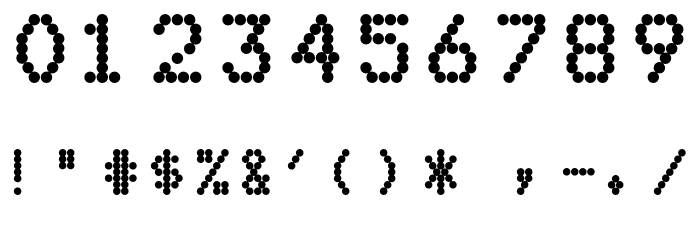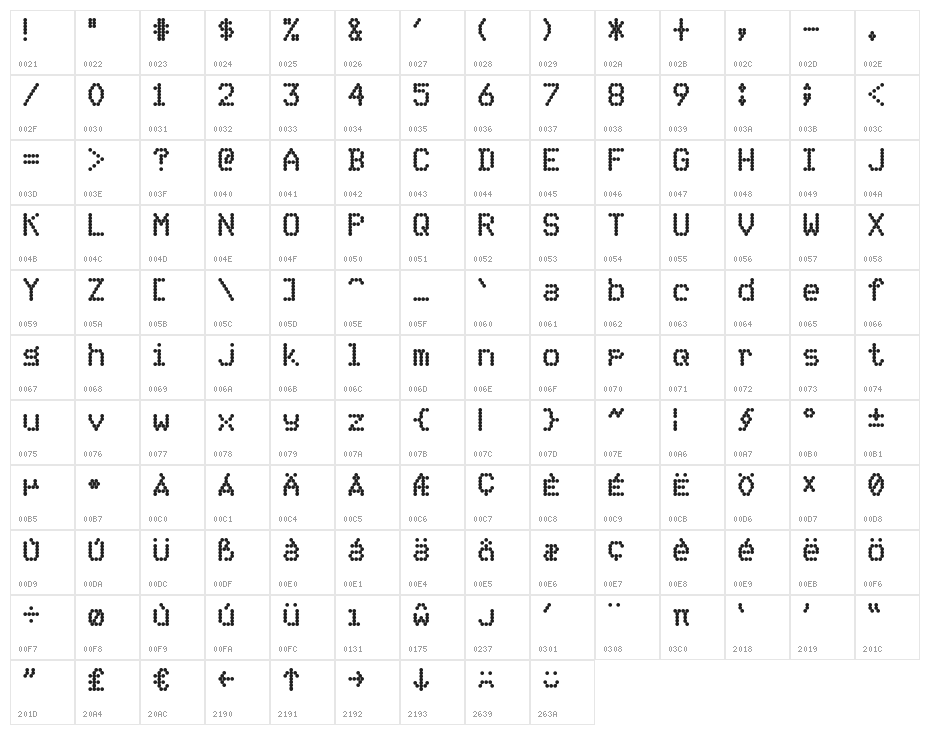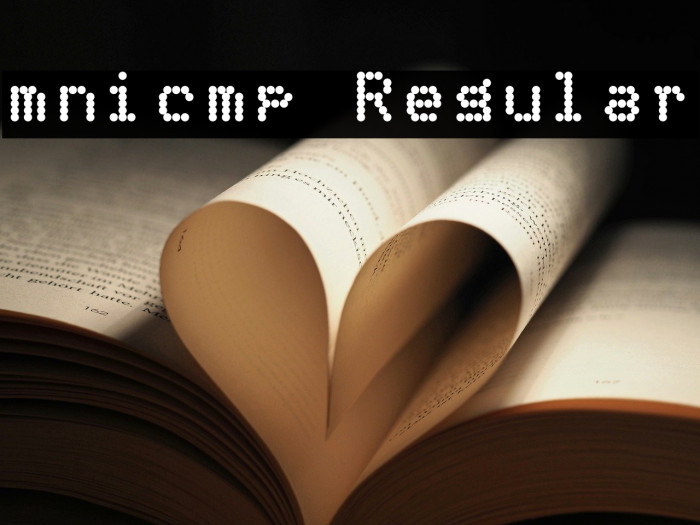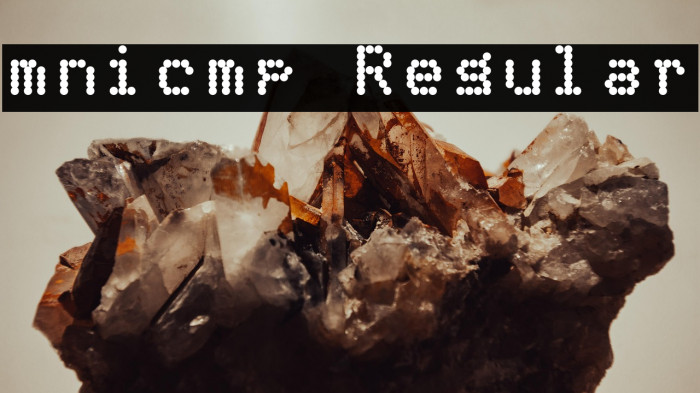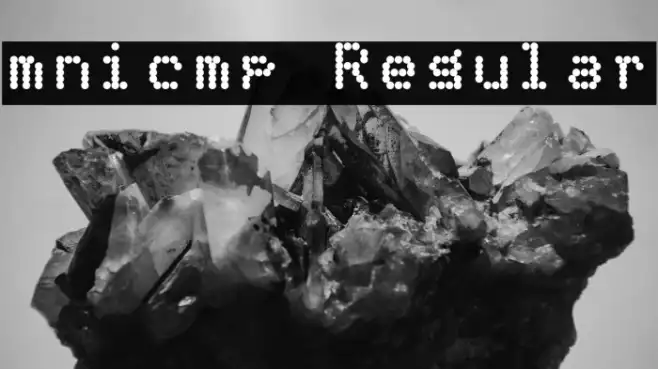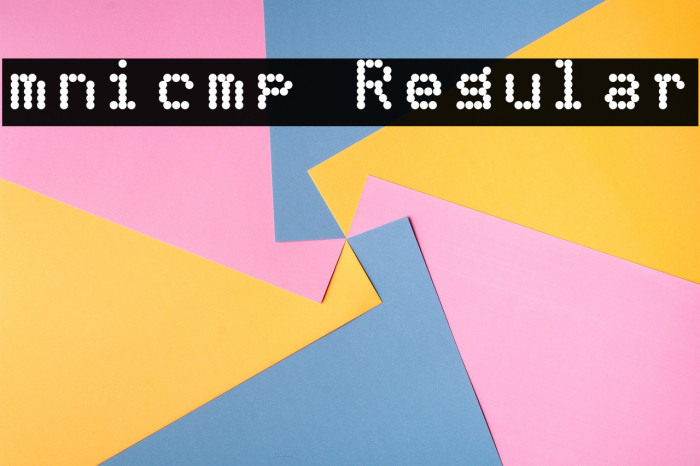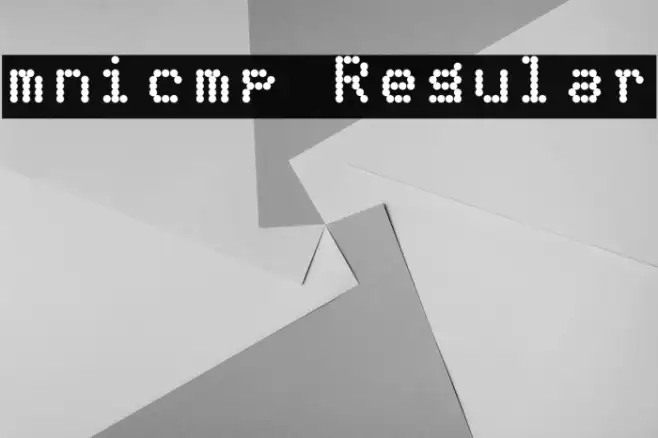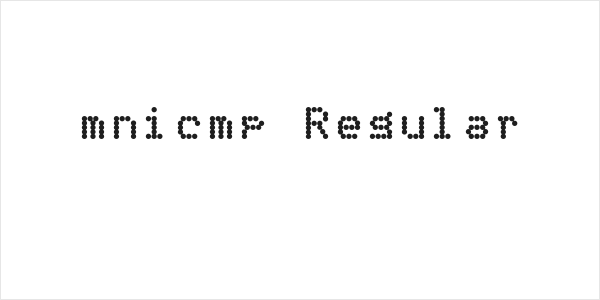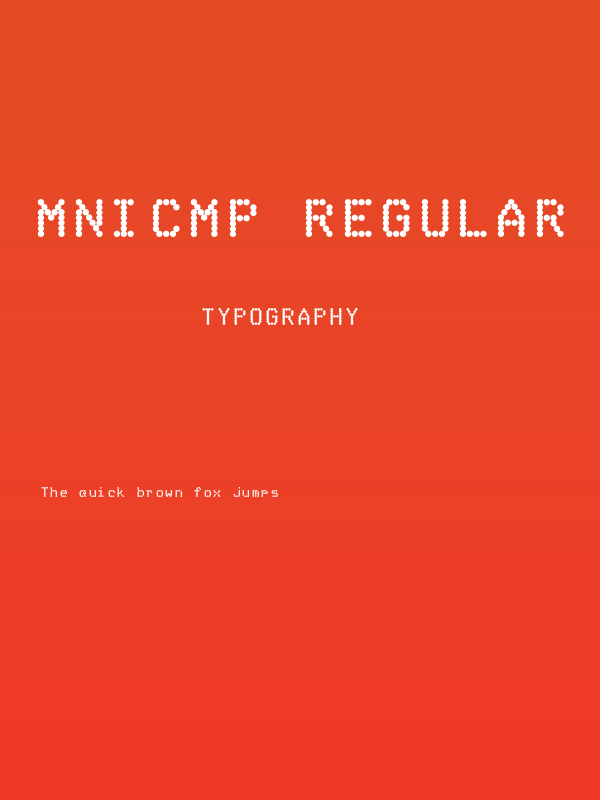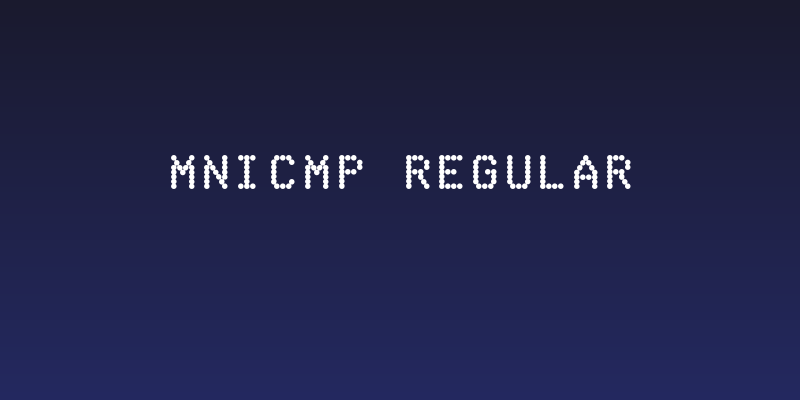
mnicmp Regular Font
mnicmp Regular Description
This font features a unique design where each character is composed of a series of evenly spaced dots, creating a digital or pixelated effect. The characters maintain a consistent structure, with clear and distinct shapes that are easily recognizable. The uppercase and lowercase letters, as well as numbers and special characters, follow this dotted pattern, ensuring uniformity across the typeface. The font's playful and modern aesthetic makes it suitable for creative and tech-oriented projects. Its distinct style is both eye-catching and functional, providing a fresh take on traditional typography.
| Use Case | Headlines, Logos, Digital Art |
| Proposed Projects | Ideal for digital art, tech branding, modern posters, and creative projects. |